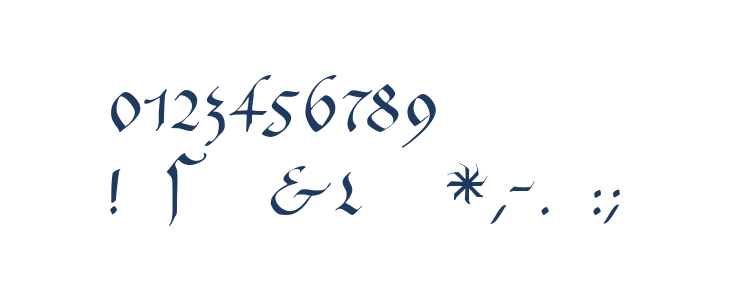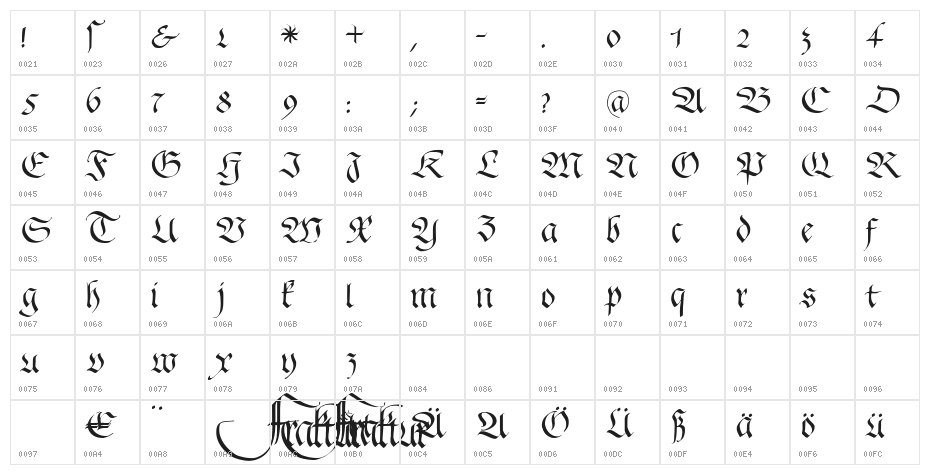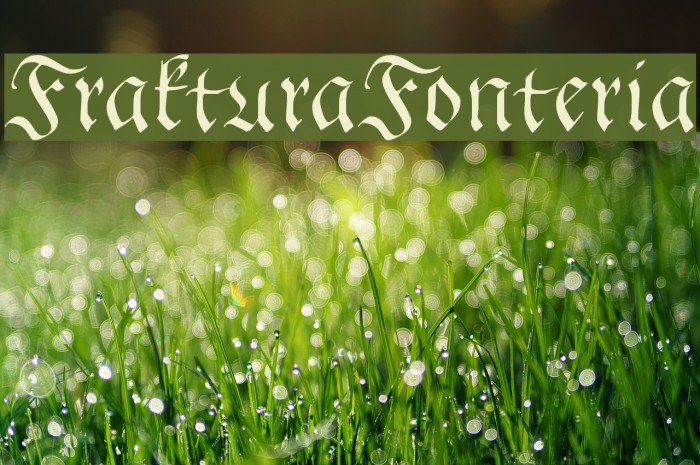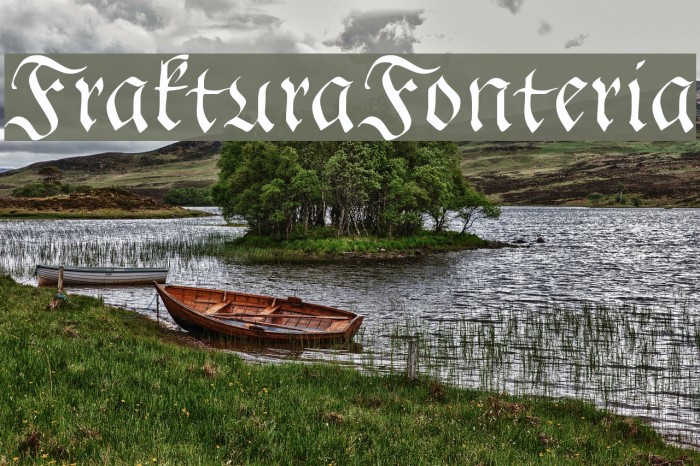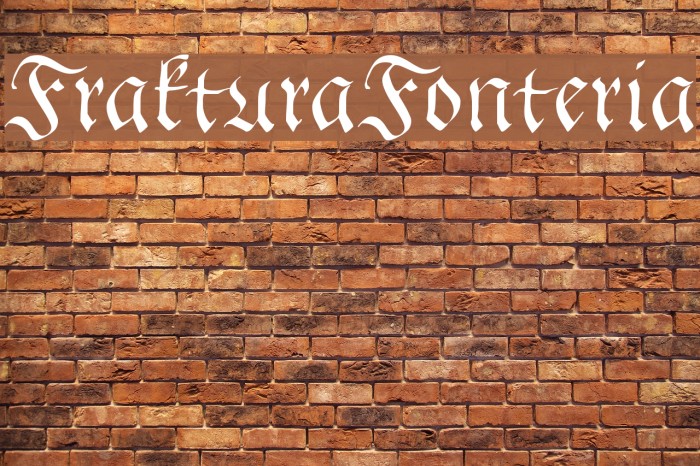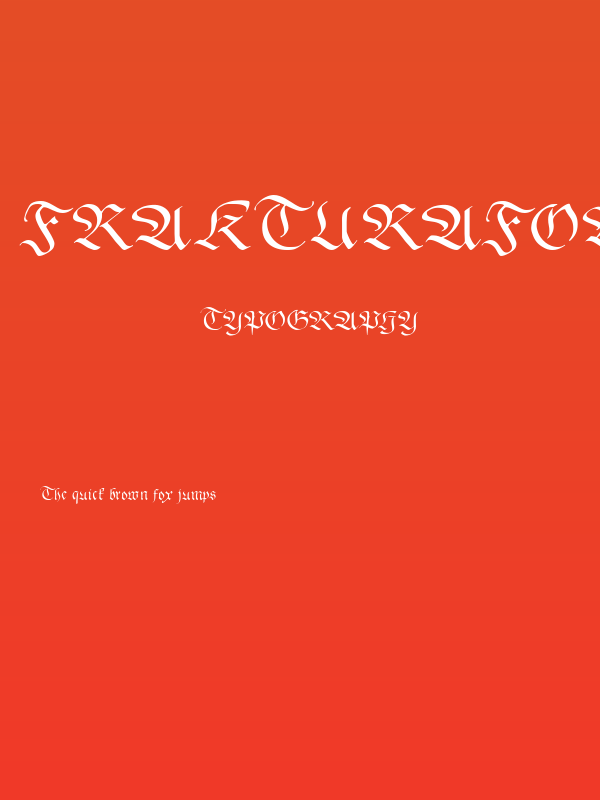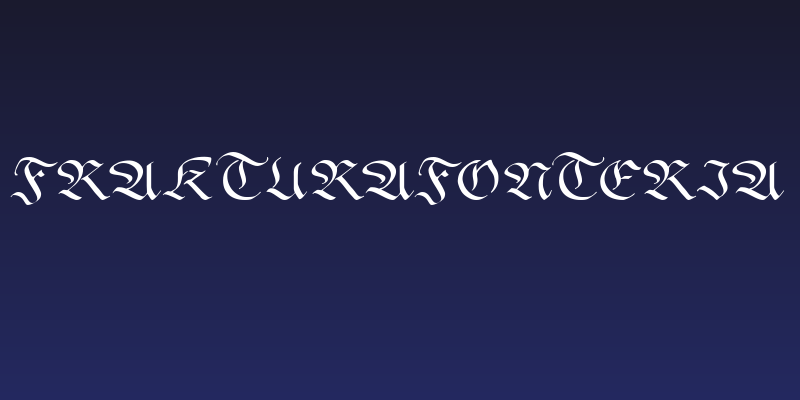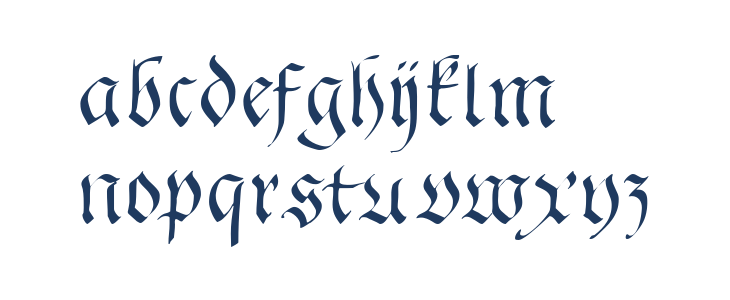
FrakturaFonteria Font
FrakturaFonteria Description
This font exhibits a classic blackletter style, characterized by its intricate and ornate letterforms. The uppercase letters are bold and angular, with sharp serifs and a distinct medieval aesthetic. The lowercase letters maintain a similar style, with flowing curves and pointed edges that give them a dramatic appearance. The numerals are consistent with the overall design, featuring sharp angles and a bold presence. Special characters are crafted with the same attention to detail, adding to the font's cohesive look. This font is ideal for projects that require a historical or gothic touch, offering a sense of tradition and elegance.
| Use Case | Headlines, Logos, Decorative text |
| Proposed Projects | Suitable for historical documents, gothic-themed designs, book covers, and decorative headings. |